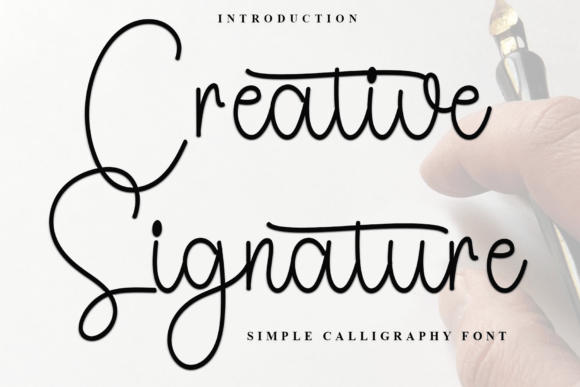
The Power of a Personal Touch: Elevating Your Designs with the Creative Signature Font
Have you ever spent hours perfecting a design, only to feel like something is missing? The perfect font can make all the difference. For me, it’s that moment when I finally find the perfect handwritten font that captures the essence of my brand. It’s a feeling of relief, excitement, and a sense that my design is truly complete.
Enter the Creative Signature Font, a sleek and modern calligraphy font that embodies the perfect blend of sophistication and minimalism. Designed to replicate a natural pen signature, this font is perfect for designers who want to add a personal touch to their work without sacrificing professionalism. With its elegant flow and fine-line strokes, the Creative Signature Font is a valuable asset for any designer looking to elevate their brand and leave a lasting impression.
Creative Signature Font Key Features
- Font Family: This font family is designed to provide a unique and personalized touch to your digital signature, with a variety of styles to choose from.
- Unique Characteristics: The font features a unique blend of cursive and script elements, with subtle flourishes and connecting strokes that give it a personal and handwritten feel.
- Legibility: The font is designed to be highly legible, even at small sizes, making it perfect for use in digital signatures, business cards, and other small-print applications.
Designer Review: Creative Signature Font
I’ve had the chance to work with the Creative Signature Font and here’s my honest review.
This font is perfect for creating a unique and stylish visual identity. It’s ideal for designers looking to add a touch of elegance to their branding materials, such as business cards, logos, and letterheads.
- Excellent for creating a professional and sophisticated look
- Works well in both digital and print formats
- Includes a wide range of font styles and sizes
While this font is great for most design projects, there are some limitations to consider.
- Not suitable for projects requiring a bold or sans-serif font
- Can be difficult to read in very small sizes
Overall, I’d say the Creative Signature Font is a solid choice for designers looking to create a unique and stylish visual identity. While it may not be suitable for every project, it’s definitely worth considering for the right design brief.
Tips for Getting the Most Out of Your Creative Signature Font
Experiment with different font combinations to create a unique look.
Use your signature font consistently across all your designs to build brand recognition.
Don’t be afraid to get creative and try new things – your signature font is a reflection of your personal style.
Business cards
Letterheads
Website headers
Social media graphics